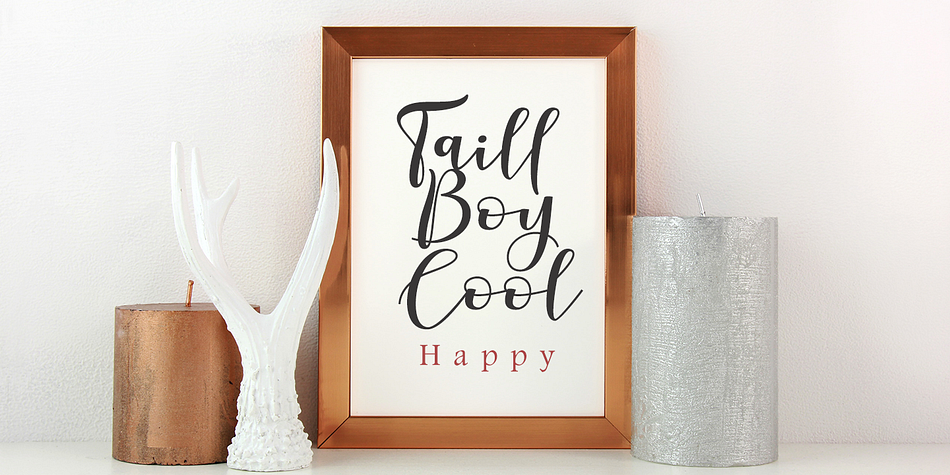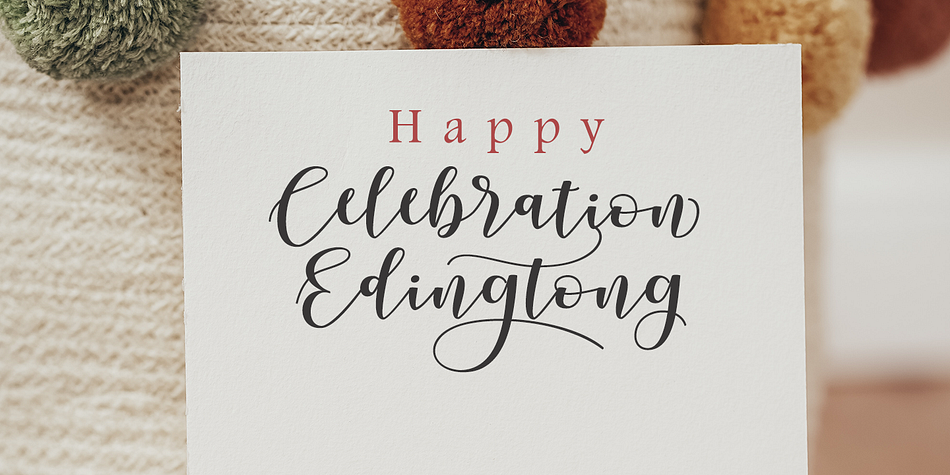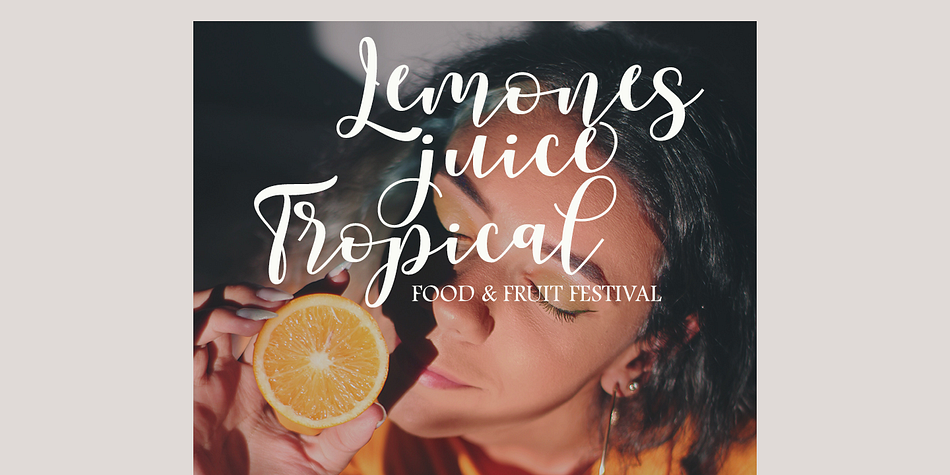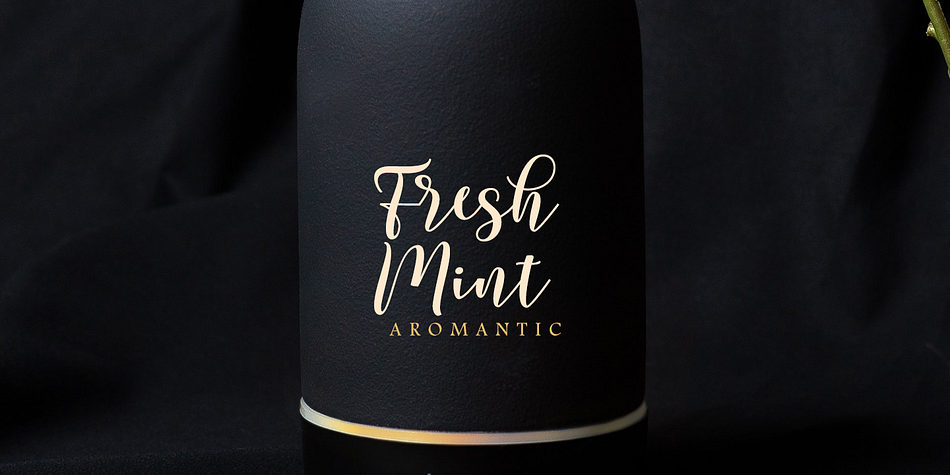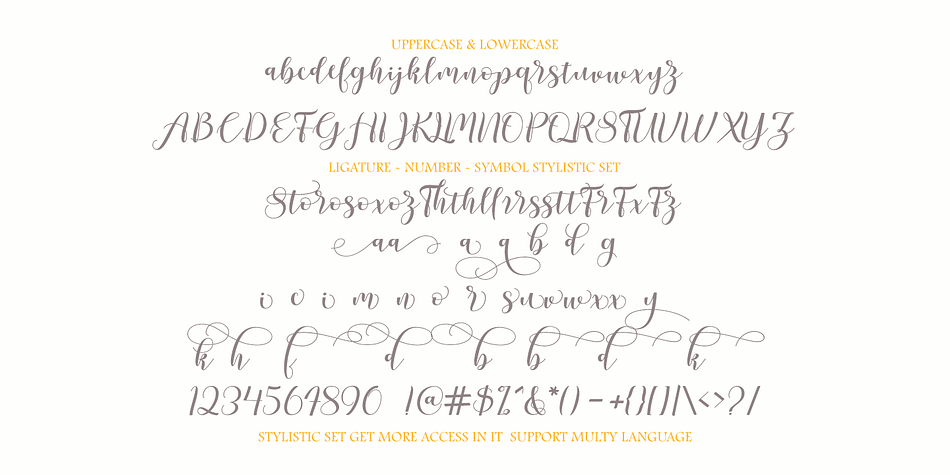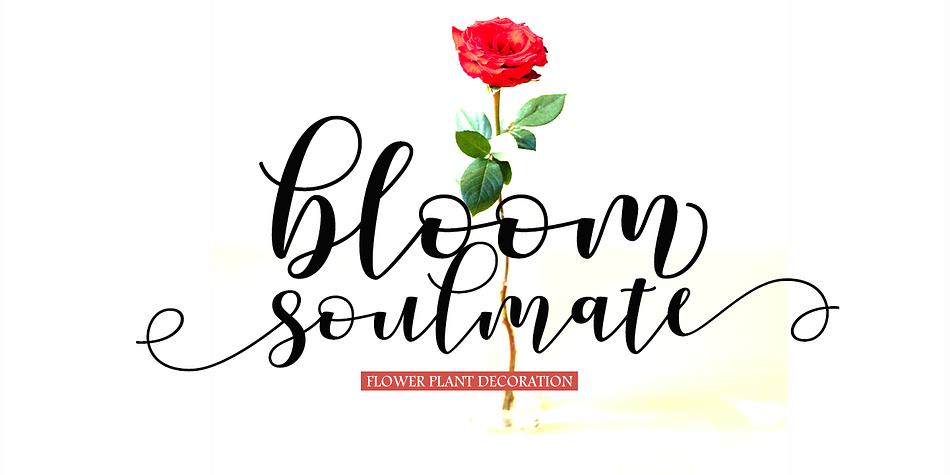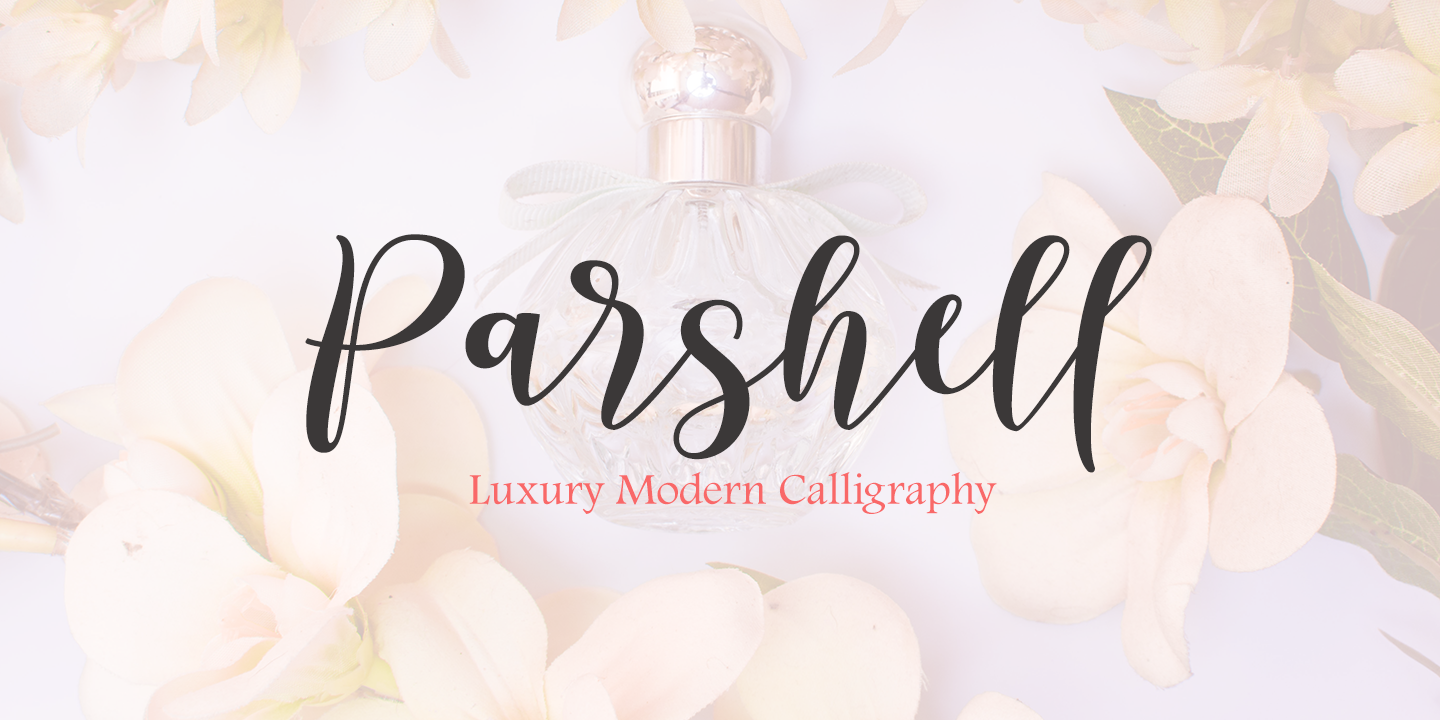
Parshell
Parshell is a brush script font family published by Gatype.
Parshell Beautiful and stylish, Parshell is a script font with a modern elegance. Its natural strokes add visual flair to any design project, from invitations to certificates—the perfect font for adding a classic touch to your projects while maintaining an authentic, handwritten look.